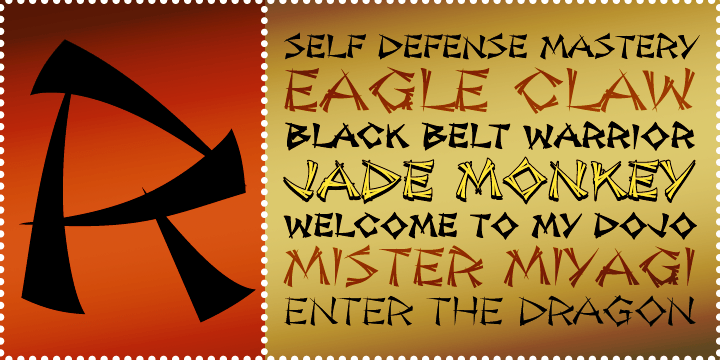
Jade Monkey BTN
About Jade Monkey BTN
Jade Monkey was inspired by the standard Chinese menu lettering and then taken to the next level. With various styles in weight and variants such as drop shadow and split nib styles, this bad boy will lay its kung fu down on you with classic appeal.…